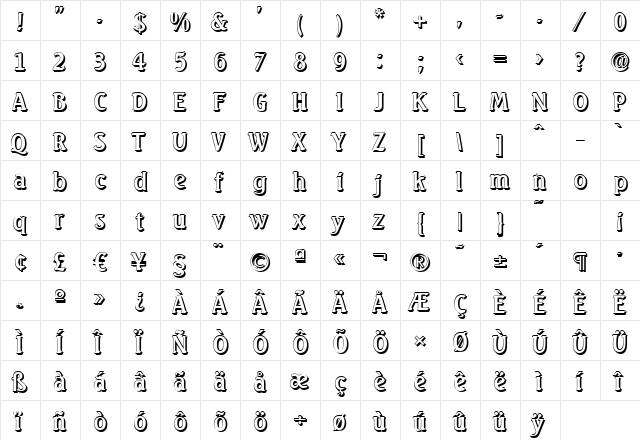
AbelBeckerShadow Regular
Design Context for AbelBeckerShadow Typeface
AbelBeckerShadow is built around its visual character rather than neutral utility — its distinctive forms are designed to make an impression at display sizes.
Font Pairing: Pair with a clean neutral sans-serif for body copy to let AbelBeckerShadow's character lead without overwhelming the composition.
Pro Tip: Treat AbelBeckerShadow as the centrepiece of your typographic hierarchy. One strong heading set in a decorative face can carry an entire layout.